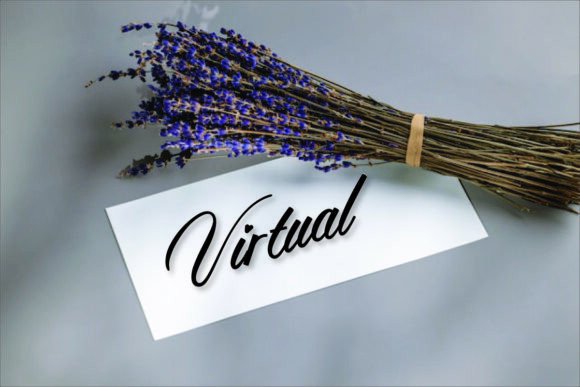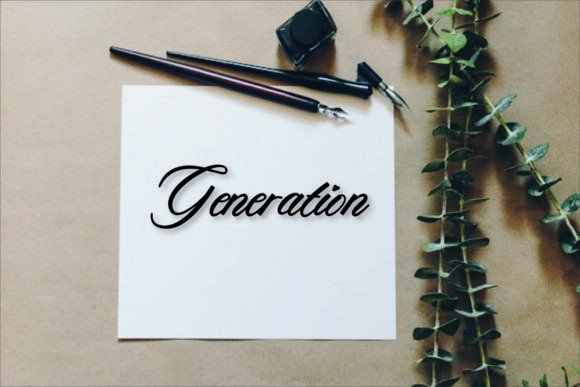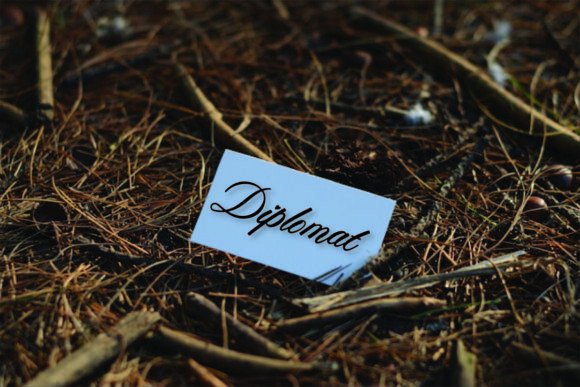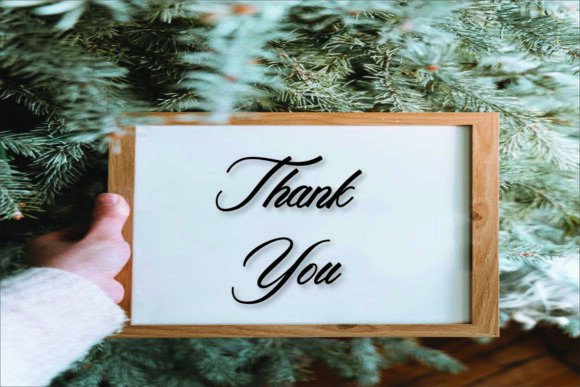
Introducing Backspace Font: A Delightful Handwritten Font with Warmth and Personality
In the world of typography, a font can make all the difference in conveying the tone and personality of a message. For designers and crafters looking for a way to add a touch of warmth and authenticity to their designs, Backspace Font is an excellent choice. This delightful handwritten font is imbued with warmth and personality, making it perfect for a variety of creative projects.
The Characteristics of Backspace Font
Backspace Font is a whimsical handwritten font that boasts a range of characteristics that set it apart from other fonts. Its strokes are playful and varied, with a sense of movement and energy that is hard to resist. The letterforms are unique and charming, with a sense of authenticity that makes them feel like they were written by hand. Whether used for titles, headings, or body text, Backspace Font adds a touch of personality to any design.
Perfect for Conveying Heartfelt Messages
One of the standout features of Backspace Font is its ability to convey heartfelt messages. The font’s whimsical strokes and varied letterforms evoke a sense of warmth and sincerity, making it perfect for designs that require a personal touch. Whether you’re creating invitations, greeting cards, or branding materials, Backspace Font is an excellent choice. It’s a font that says, “I’m taking the time to write this especially for you,” which is perfect for designs that require a personal touch.
Uses for Backspace Font
Backspace Font is a versatile font that can be used for a wide range of creative projects. Here are some ideas to get you started:
- Invitations: Use Backspace Font to create beautiful, one-of-a-kind invitations for weddings, birthday parties, and other special occasions.
- Greeting Cards: Add a personal touch to your greeting cards with Backspace Font. It’s perfect for creating heartfelt messages for friends and loved ones.
- Branding: Use Backspace Font to create a unique and memorable brand identity. It’s perfect for businesses that want to convey a sense of warmth and personality.
- Stationery: Create beautiful stationery with Backspace Font. It’s perfect for writing letters, notes, and other correspondence.
Why Designers and Crafters Love Backspace Font
Designers and crafters love Backspace Font for a variety of reasons. Here are a few:
- Unique and Authentic: Backspace Font is a unique and authentic font that adds a touch of personality to any design.
- Easy to Read: Despite its whimsical nature, Backspace Font is easy to read, making it perfect for body text and other written content.
- Versatile: Backspace Font is a versatile font that can be used for a wide range of creative projects.
- Warm and Inviting: Backspace Font is a warm and inviting font that evokes a sense of sincerity and authenticity.
In conclusion, Backspace Font is a delightful handwritten font that is perfect for designers and crafters looking to add a touch of warmth and personality to their designs. Its whimsical strokes and varied letterforms evoke a sense of authenticity and charm, making it perfect for conveying heartfelt messages. Whether used for invitations, greeting cards, or branding, Backspace Font is an excellent choice. So why not give it a try and see how it can elevate your designs?
Get Creative with Backspace Font
Ready to get creative with Backspace Font? Here are some tips to help you get started:
- Experiment with Different Sizes: Backspace Font looks great in a variety of sizes, from large headings to smaller body text.
- Pair it with Other Fonts: Backspace Font pairs well with a range of other fonts, so don’t be afraid to experiment with different combinations.
- Add Some Color: Backspace Font looks great in a range of colors, so don’t be afraid to add some personality to your designs with color.